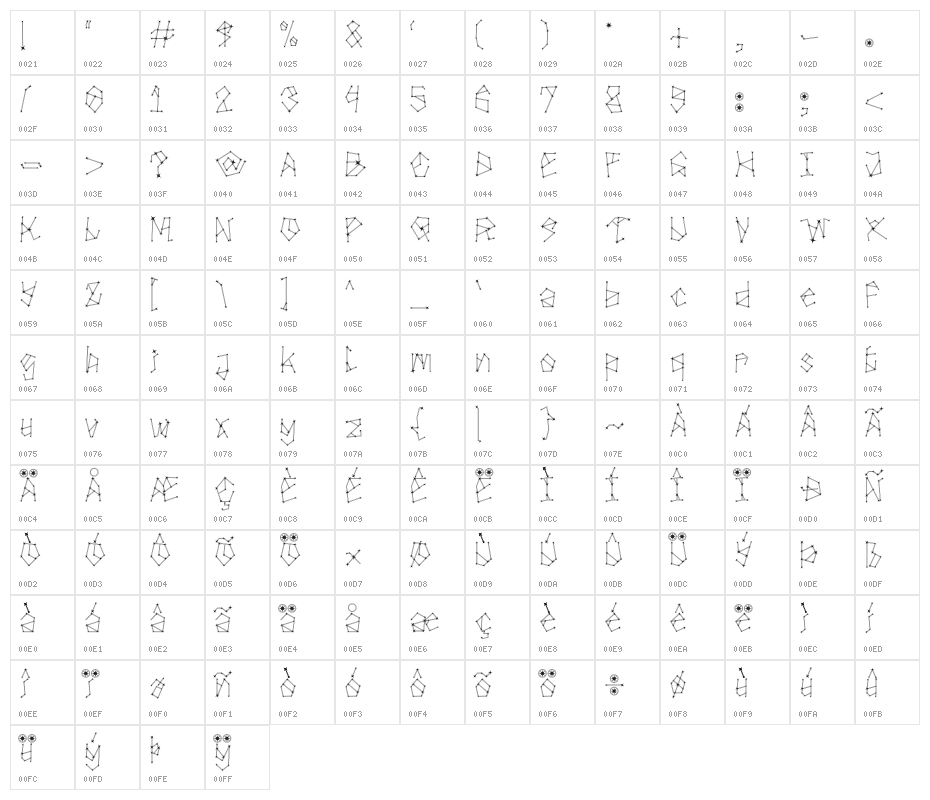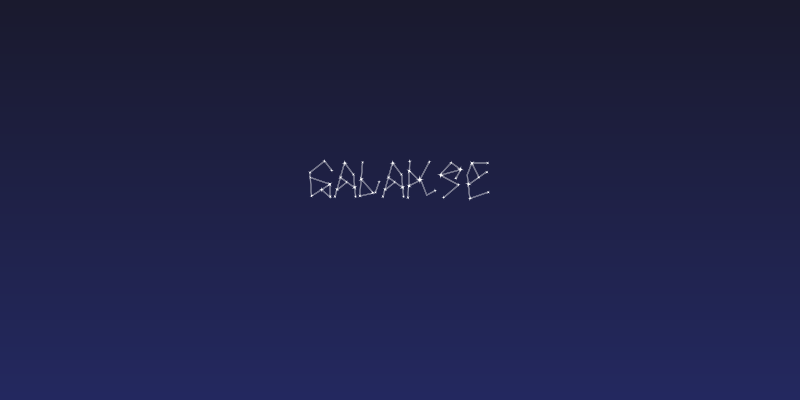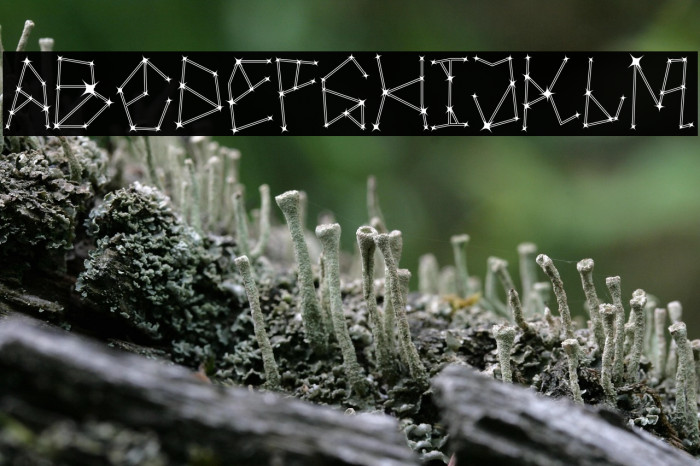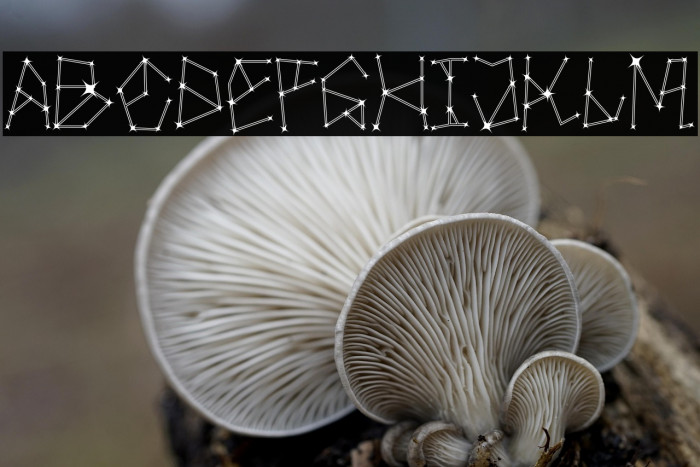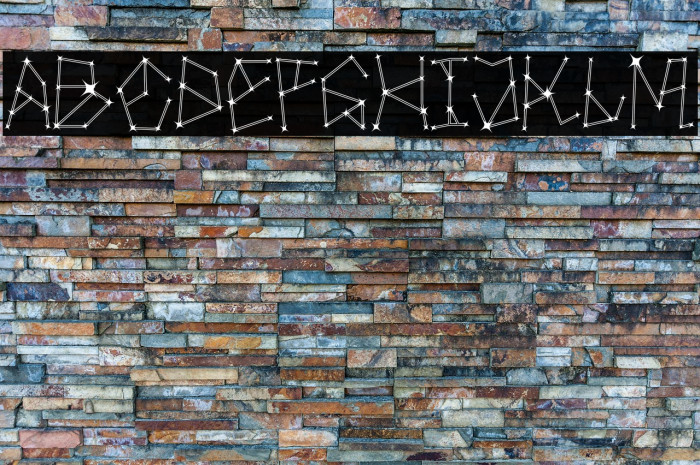
Galakse Font
Galakse Description
This font is a unique and creative design inspired by constellations and the night sky. Each character is composed of lines and star-like points, giving it an astronomical and whimsical appearance. The uppercase and lowercase letters, as well as numbers and special characters, are all crafted with a consistent style that mimics the connections between stars in a constellation. This font is perfect for projects that require a celestial or cosmic theme, adding a touch of the universe to any design. Its decorative nature makes it ideal for eye-catching headlines or artistic projects.
| Proposed Projects | Ideal for astronomy-themed posters, children's books, event invitations, and creative logos. |